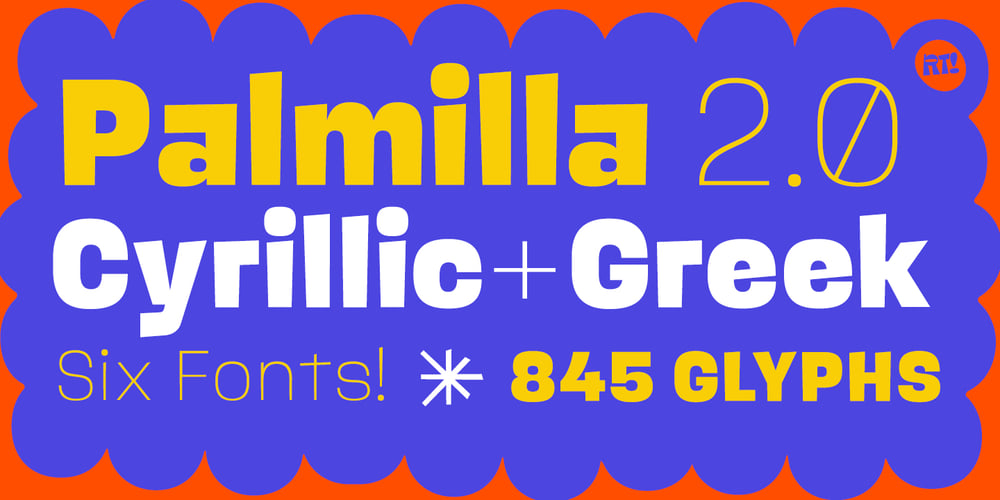
Palmilla 2.0 Font Family was designed by Rodrigo Araya Salas, Bruno Jara Ahumada and published by RodrigoTypo. Palmilla 2.0 contains 6 styles and family package options. Palmilla 2.0 is a continuation of palmilla which added more glyphs such as Alphabets, Cyrillic was added like Greek, in addition to Alternatives such as Ligatures, more Ligatures were also added in Latin to play more with the title, in total there are six special weights for informal and creative titles.